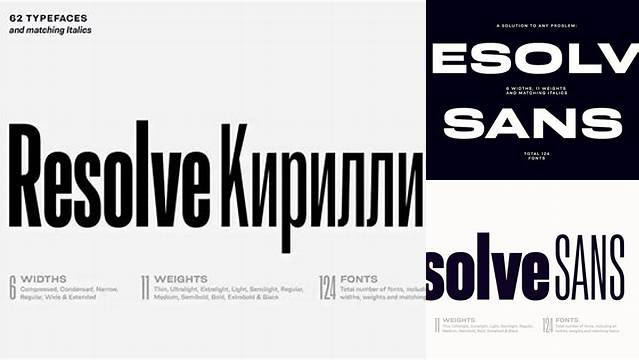
Are you looking to enhance your designs with a modern and versatile font? Then, the Resolve Sans font family might just be what you need. In this comprehensive guide, we'll dive into the specifics of this popular font, including its characteristics, ideal use cases, and, most importantly, where you can find a Resolve Sans font family free download. So, if you're ready to elevate your typography game, let's get started!
What is Resolve Sans Font Family?
Resolve Sans is a contemporary and clean sans-serif typeface known for its readability and versatility. It's a font that strikes a balance between professionalism and approachability, making it suitable for a wide range of design projects. The font family typically includes various weights, from light to bold, along with their corresponding italics, providing designers with ample flexibility.
Its clean lines and open forms contribute to excellent legibility, making it a solid choice for both body text and headlines. Moreover, Resolve Sans has a modern aesthetic that works well in digital and print media. Whether you're designing a website, creating marketing materials, or working on a presentation, Resolve Sans can help you achieve a polished and professional look. The versatility of Resolve Sans also makes it a favorite among designers who need a reliable font that can adapt to different styles and contexts. Its neutral yet distinct character ensures that it complements other design elements without overpowering them, making it a true workhorse in the world of typography. For designers aiming for a balance between functionality and aesthetic appeal, Resolve Sans offers a compelling solution. Its wide range of weights and styles provides the necessary tools to create visually engaging and easily readable content, regardless of the medium.
- Readability: Resolve Sans excels in readability, making it ideal for body text, ensuring a pleasant reading experience.
- Versatility: Its clean and modern design makes it suitable for a wide array of applications, from web design to print materials.
- Multiple Weights: The font family typically includes various weights (light, regular, bold, etc.) and italics, offering design flexibility.
- Modern Aesthetic: Resolve Sans has a contemporary look that can give your designs a fresh and updated feel.
- Professional Appearance: It conveys a sense of professionalism, making it a solid choice for business-related projects.
Resolve Sans is distinguished by its exceptional clarity and legibility, which makes it a preferred choice for extensive text blocks. The font's open letterforms and consistent stroke widths ensure that it remains readable even at smaller sizes, a crucial feature for body text in both digital and print formats. This readability is not just about functionality; it also enhances the user experience, allowing readers to engage with the content more effortlessly. In terms of versatility, Resolve Sans shines across various mediums and design contexts. Its neutral yet refined appearance makes it adaptable to different branding styles, from corporate to creative. The availability of multiple weights and styles, such as light, regular, bold, and italics, further expands its usability, providing designers with the tools to create visual hierarchy and emphasis within their designs. For instance, a bold weight can be used for headings to grab attention, while the regular weight ensures a smooth reading experience for the main content.
The modern aesthetic of Resolve Sans is characterized by its clean lines and geometric shapes, which give it a contemporary edge. This modern feel makes it particularly well-suited for designs that aim to convey innovation, simplicity, and clarity. Its professional appearance is another key characteristic, making it a reliable choice for business and corporate communications. The font conveys a sense of competence and trustworthiness, ensuring that the message is delivered with credibility. Whether it's used in a business report, a presentation, or a company website, Resolve Sans helps to create a polished and professional image. The font's ability to maintain its integrity across different applications and contexts underscores its value as a versatile and dependable typeface.
Ideal Use Cases for Resolve Sans
- Web Design: Perfect for website body text, headlines, and navigation menus.
- Print Materials: Excellent for brochures, flyers, posters, and business cards.
- Presentations: Ensures clear and readable content for slides.
- Logos and Branding: Can be used to create a modern and professional brand identity.
- Editorial Design: Suitable for magazines, newspapers, and books.
In web design, the role of a font like Resolve Sans cannot be overstated. Its clean and legible character ensures that website visitors can easily read and engage with the content. This is crucial for maintaining user interest and reducing bounce rates. Resolve Sans works seamlessly for various web elements, including body text, headlines, and navigation menus. Its adaptability allows designers to create a cohesive and user-friendly online experience. For instance, the regular weight can be used for body text to ensure readability, while the bold weight can highlight important headings and calls to action. The font's modern aesthetic also aligns well with contemporary web design trends, making it a popular choice for websites that aim to convey a sense of innovation and professionalism.
In the realm of print materials, Resolve Sans offers similar advantages. Its clarity and versatility make it an excellent option for brochures, flyers, posters, and business cards. The font's ability to maintain its legibility in print ensures that the message is effectively communicated, regardless of the medium. For instance, Resolve Sans can be used in brochures to present information in a clear and organized manner, making it easy for readers to grasp key details. Similarly, in posters, the font can be used for headlines and body text, ensuring that the message is both visually appealing and easy to read. Business cards designed with Resolve Sans convey a sense of professionalism and attention to detail, which can leave a lasting impression on clients and partners. Presentations also benefit significantly from the use of Resolve Sans. The font ensures that content is clear and readable on slides, helping presenters to convey their message effectively. Its clean lines and simple forms minimize distractions, allowing the audience to focus on the information being presented.
The exploration of font alternatives is not just a matter of cost-saving; it's also an opportunity to broaden your typographic palette and discover new fonts that might even better suit your specific design needs. Each of the mentioned alternatives possesses unique characteristics that can bring a distinct flavor to your projects. For instance, Open Sans provides a clean and neutral appearance, making it a versatile choice for various applications, while Lato offers a slightly warmer and friendlier feel. Roboto, with its mechanical skeleton and geometric forms, brings a modern and contemporary touch, and Montserrat exudes a stylish and elegant vibe. Nunito, with its rounded terminals, is particularly well-suited for designs that require a friendly and approachable tone. Ultimately, the key to successful design lies in the thoughtful selection and application of typography. By understanding the nuances of different fonts and how they can influence the overall message and aesthetic, designers can create compelling and effective visual communications. So, whether you manage to find a free download of Resolve Sans or opt for one of its excellent alternatives, the most important thing is to continue exploring, experimenting, and refining your typographic skills. Let your creativity flourish, and let the power of typography elevate your designs to new heights.